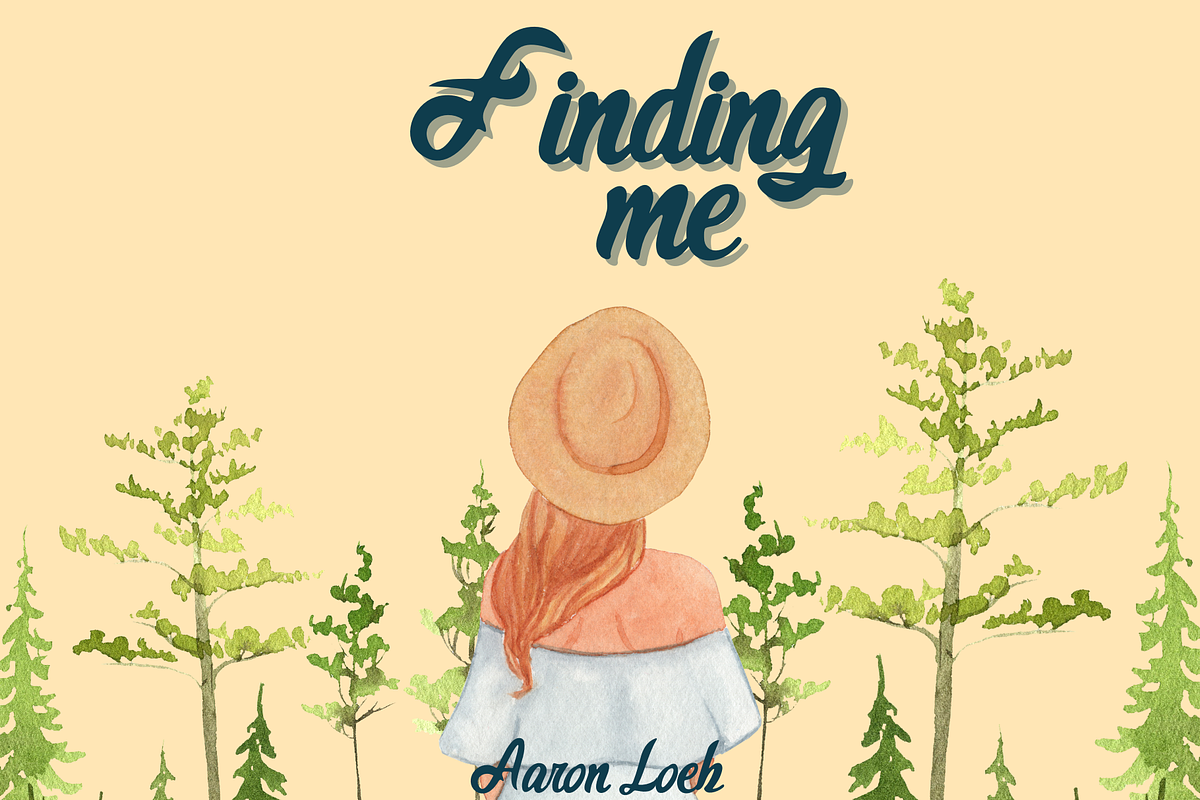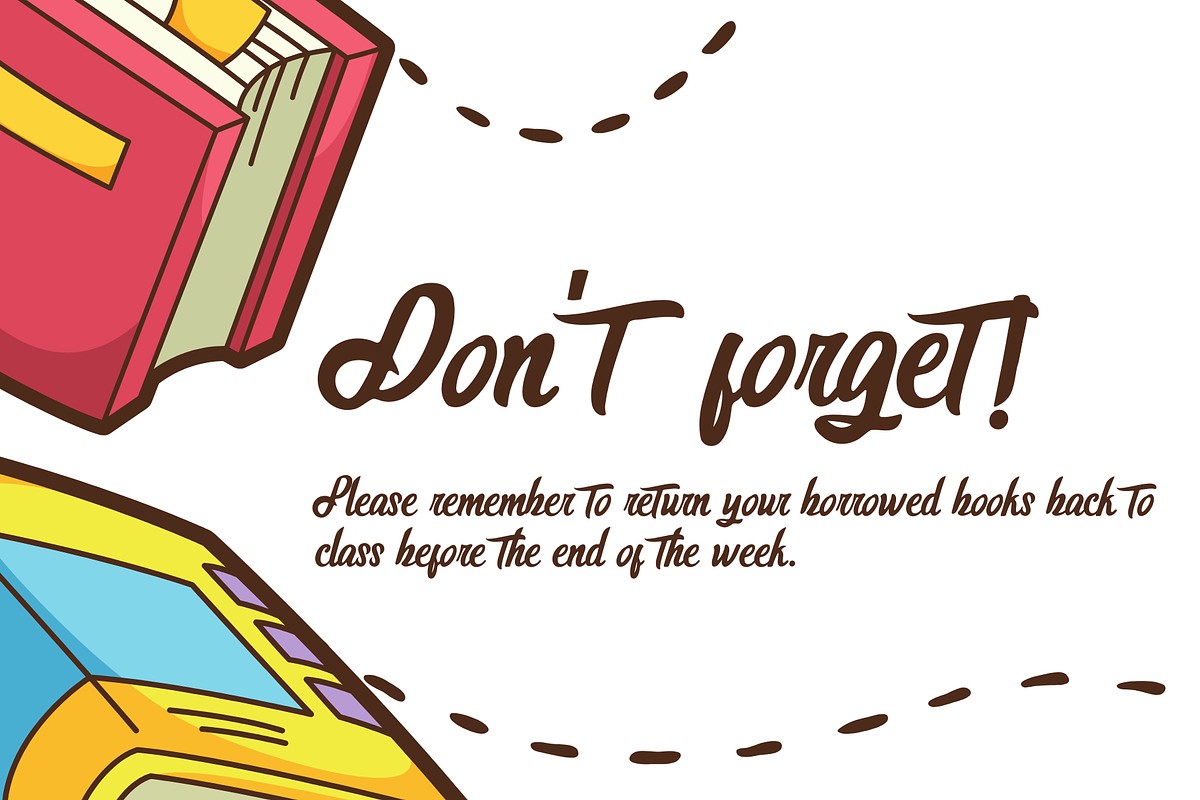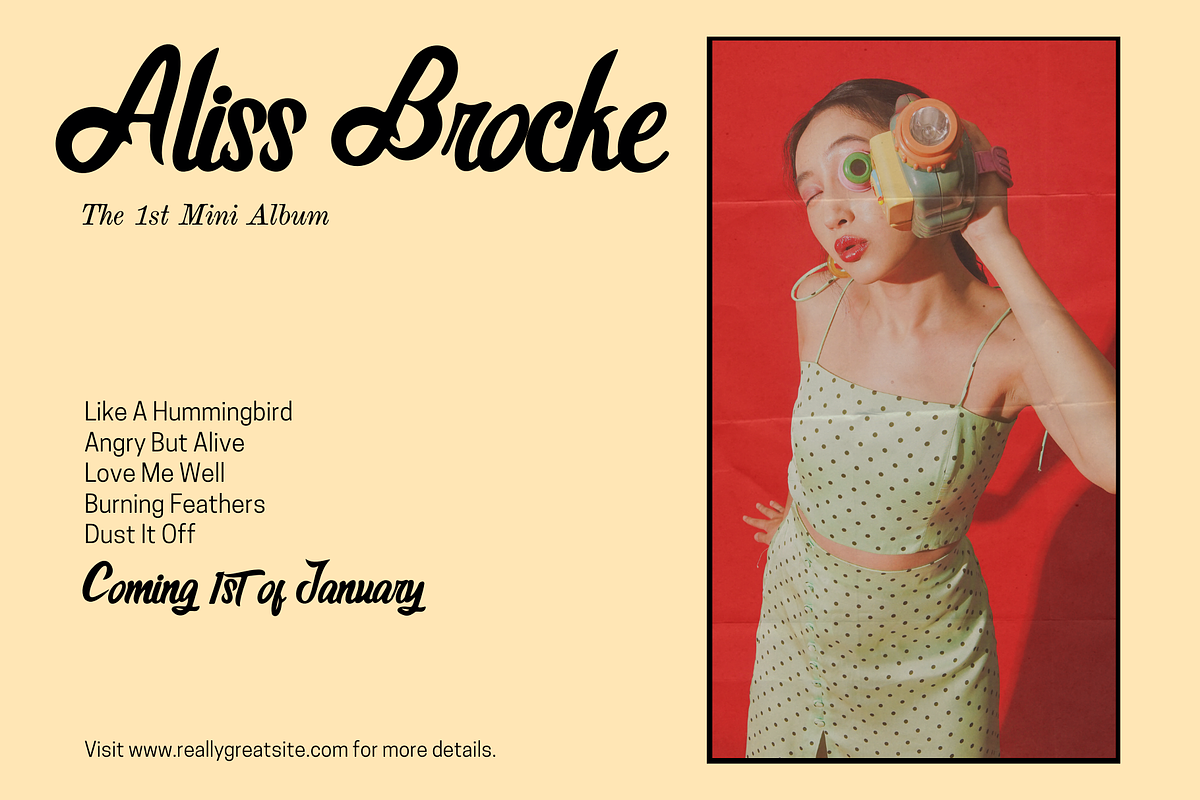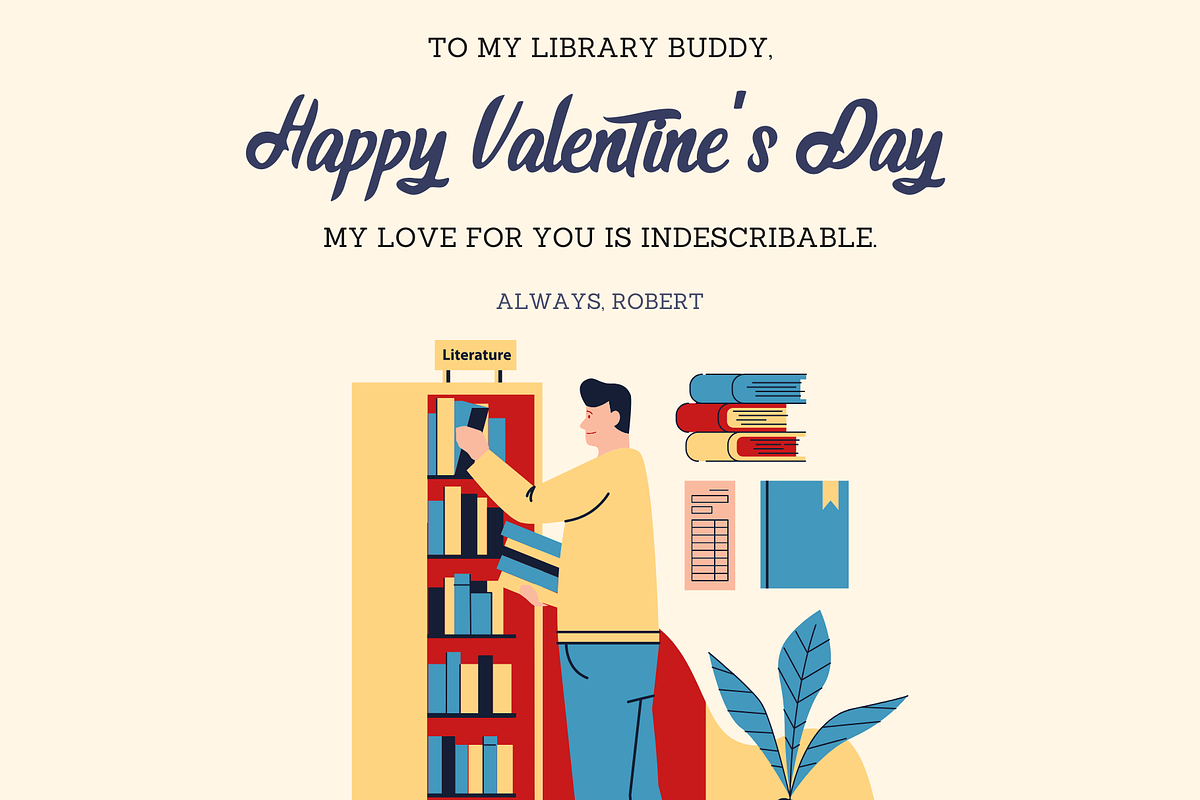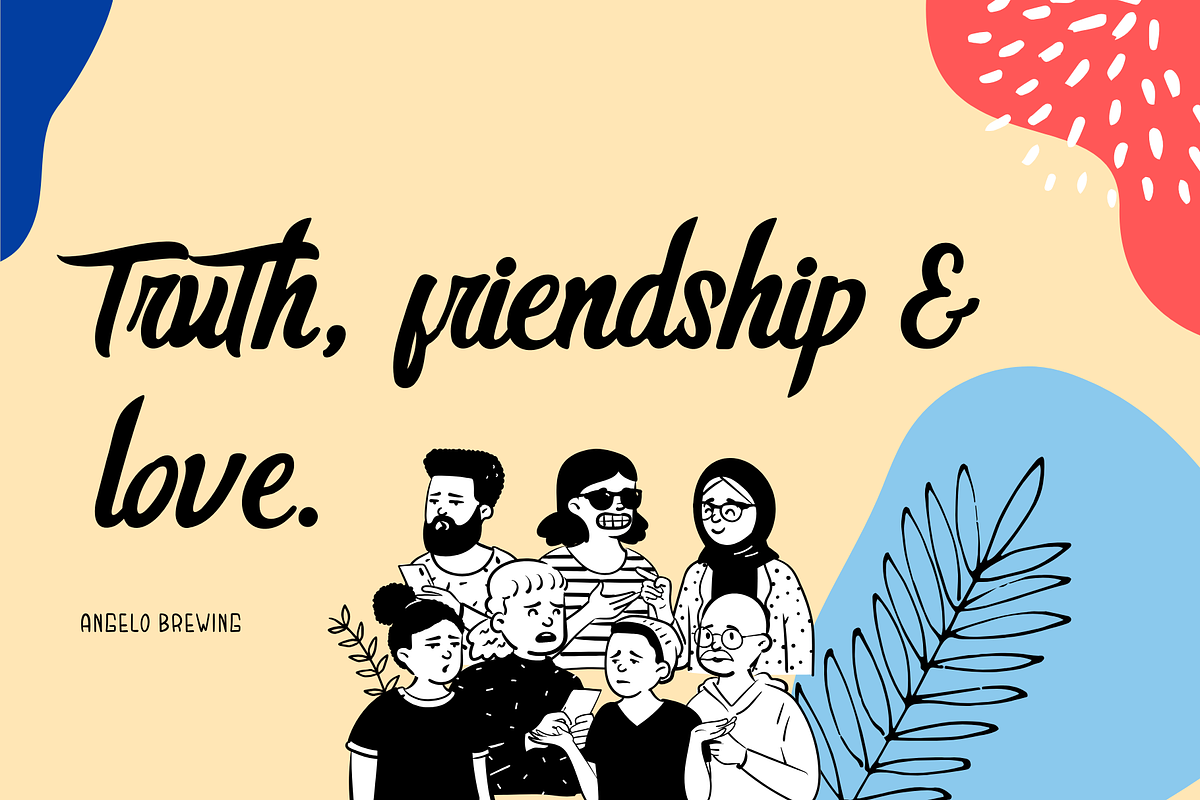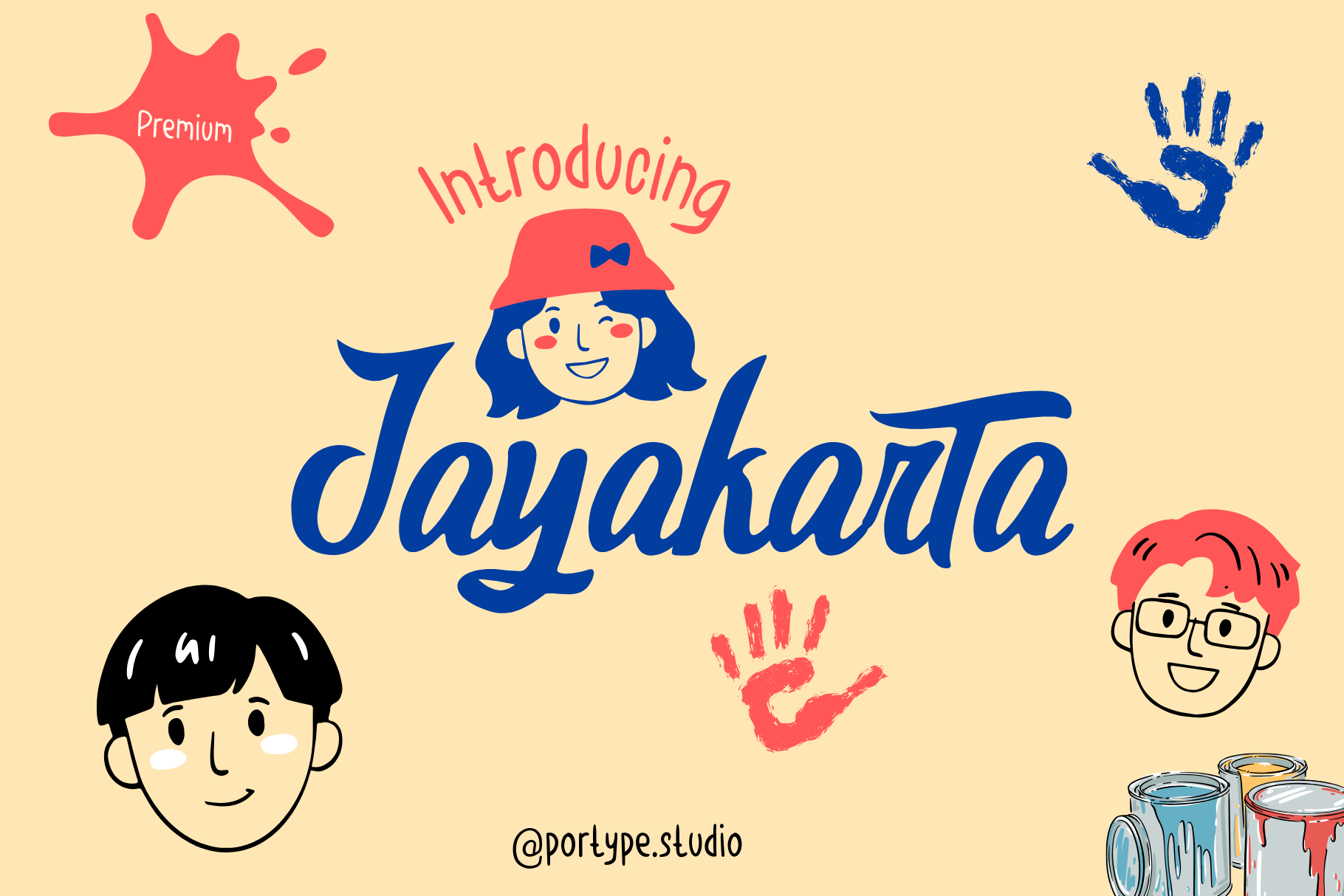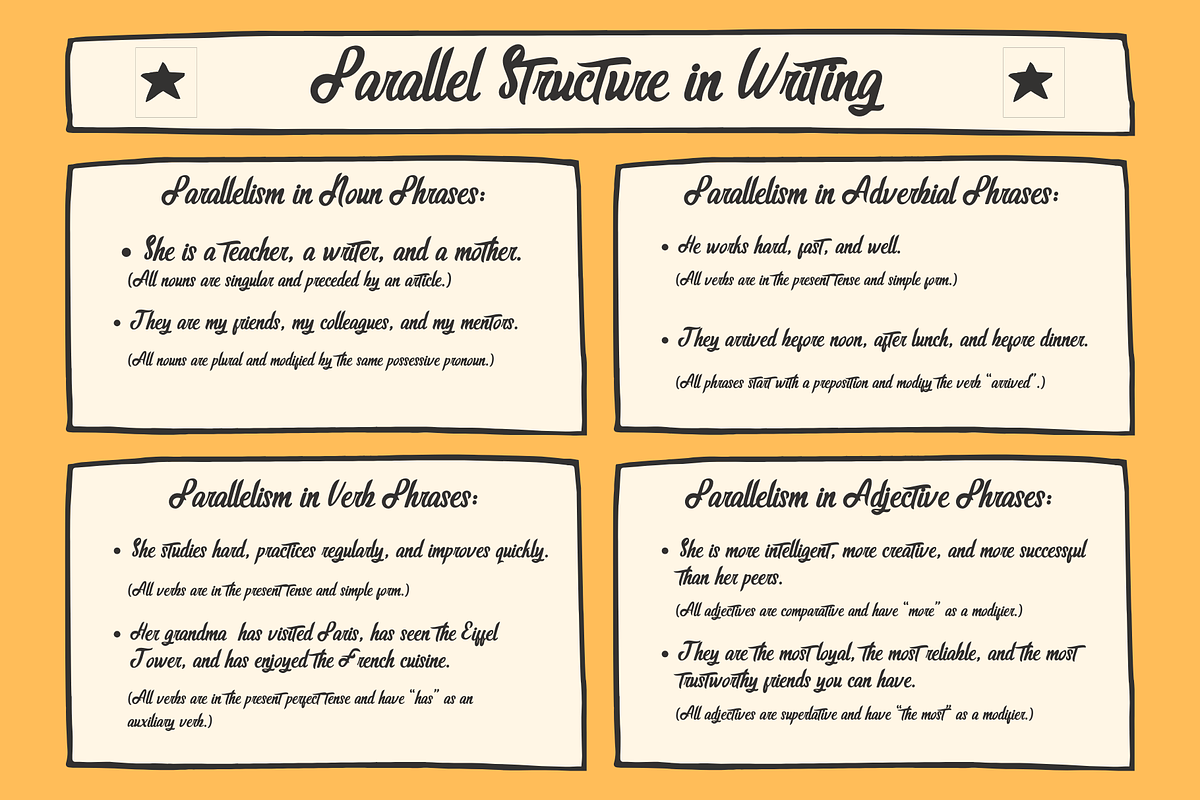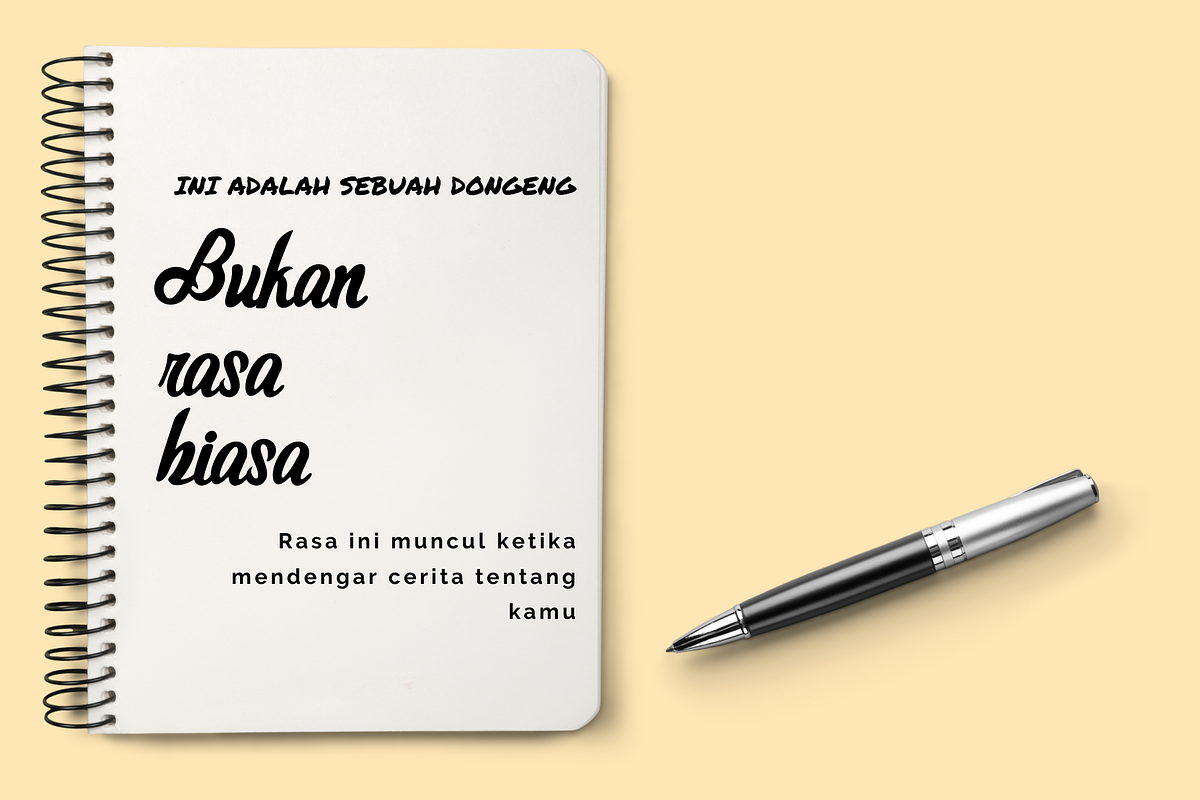
Jayakarta Font
Jayakarta Font is a vibrant and playful script font designed to add a touch of whimsy to your designs. Whether you're crafting greeting cards, invitations, posters, or branding materials, Jayakarta Font brings a delightful charm to any project. With its flowing lines and dynamic strokes, this font captures the essence of creativity and fun. Explore the versatility of Jayakarta Font for your next design endeavor and infuse your work with a sense of joy and personality. Download Jayakarta Font today and unleash your imagination!